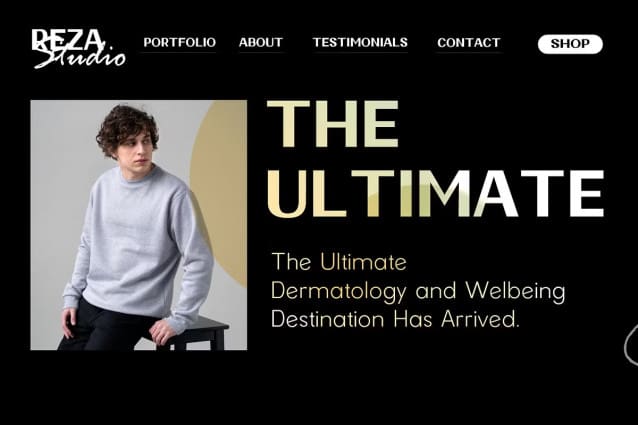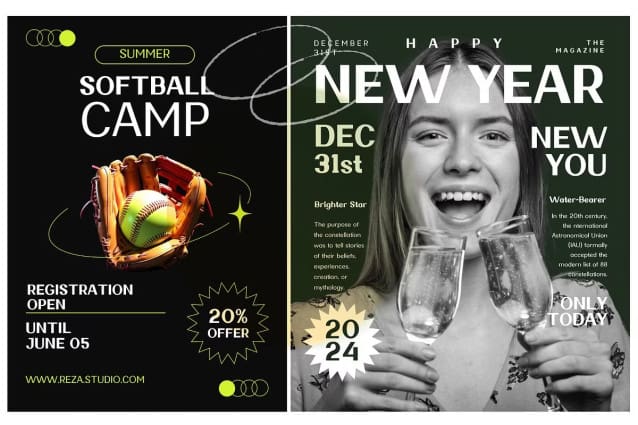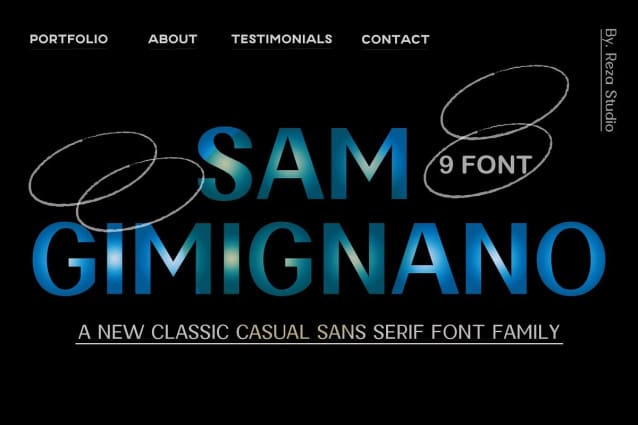
Sam Gimignano Font Family
Sam Gimignano Font Family is a sans-serif typeface family in 9 weights, supporting most European languages ​​and features. This typeface is versatile to combine in your designs – with 9 weights, ranging from thin, extra light, light, regular, medium, semi bold, bold, Extra Bold, Black.
Sam Gimignano is a testament to sleek modernity and timeless competition. Sans-serif fonts, with their clean lines and minimalist charm, offer a versatile canvas for creative expression across a variety of design mediums. From conveying corporate professionalism to injecting clarity and readability into digital interfaces, erigo fonts emphasize their adaptability and timeless appeal in effectively grabbing attention and conveying messages in today’s visually driven landscape.